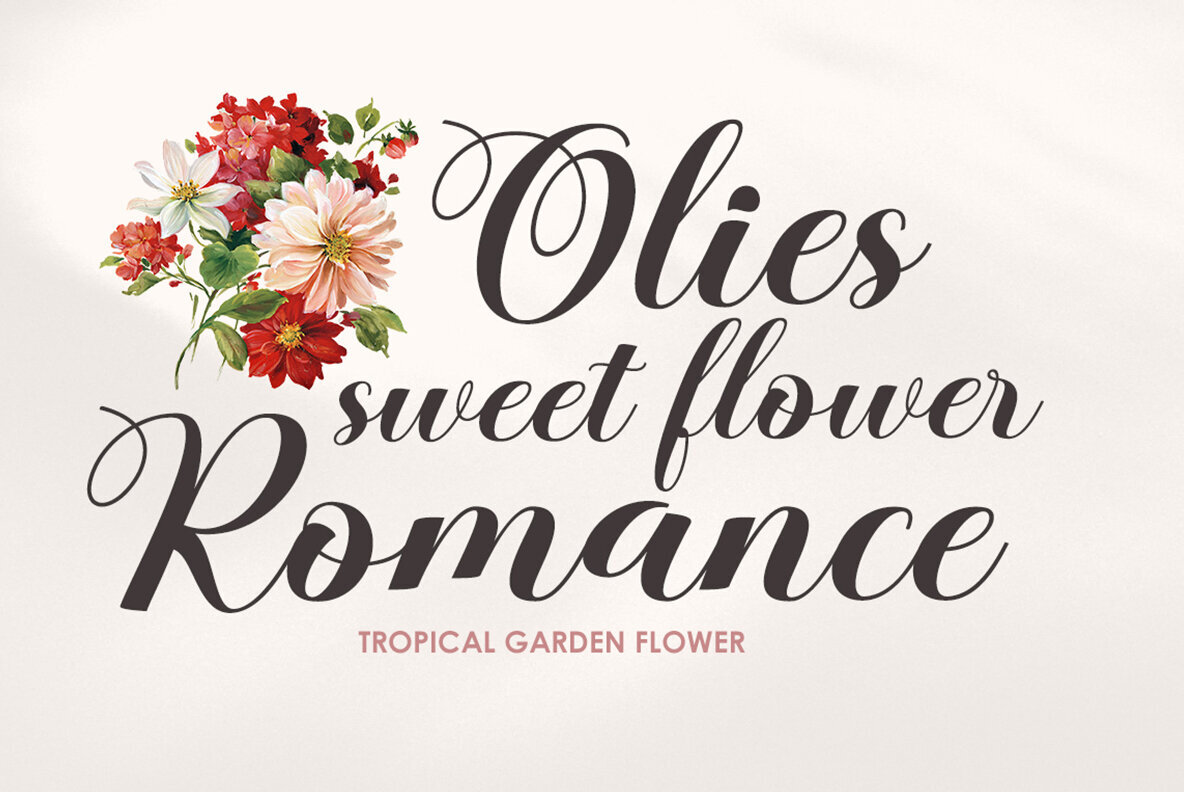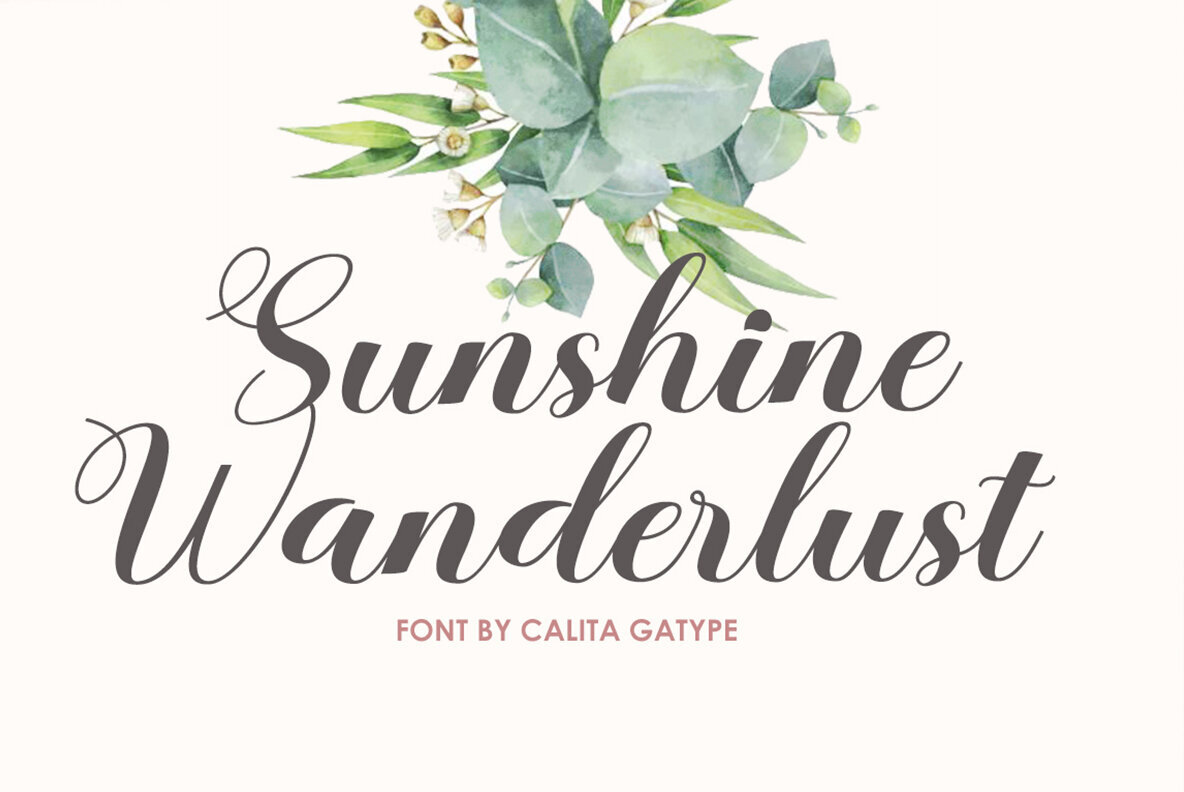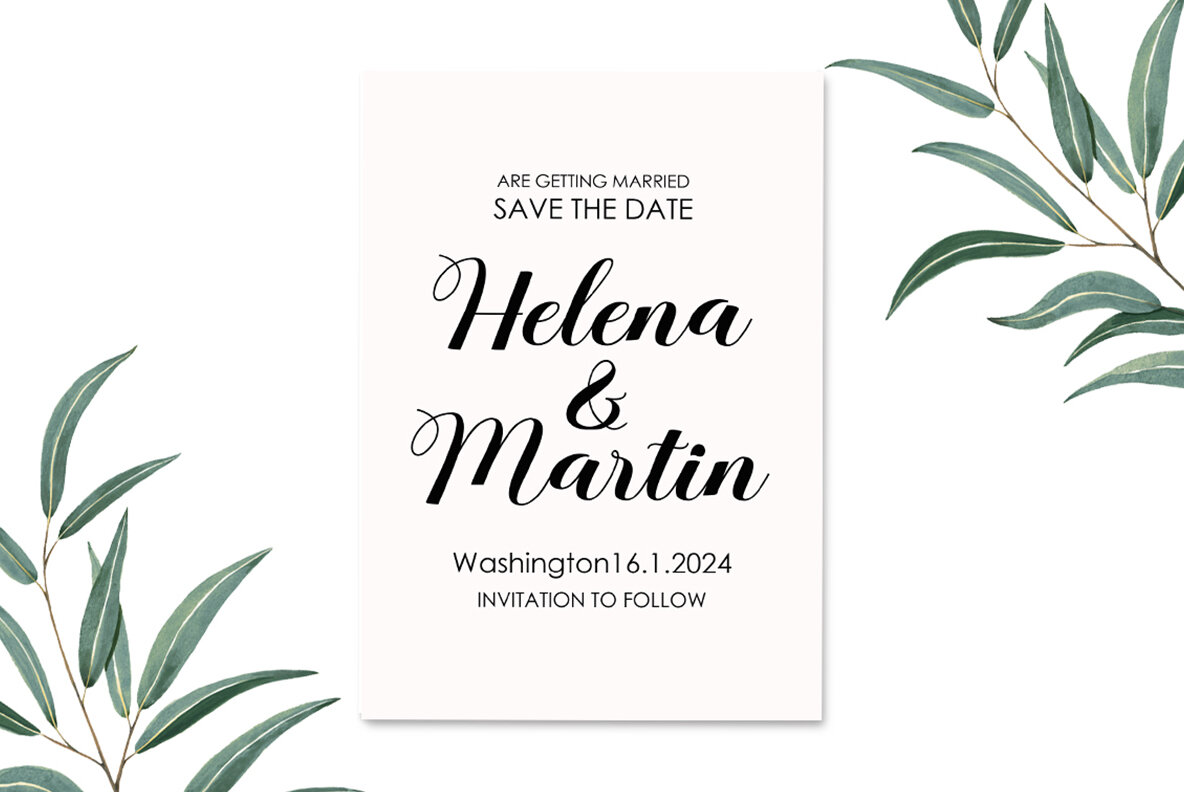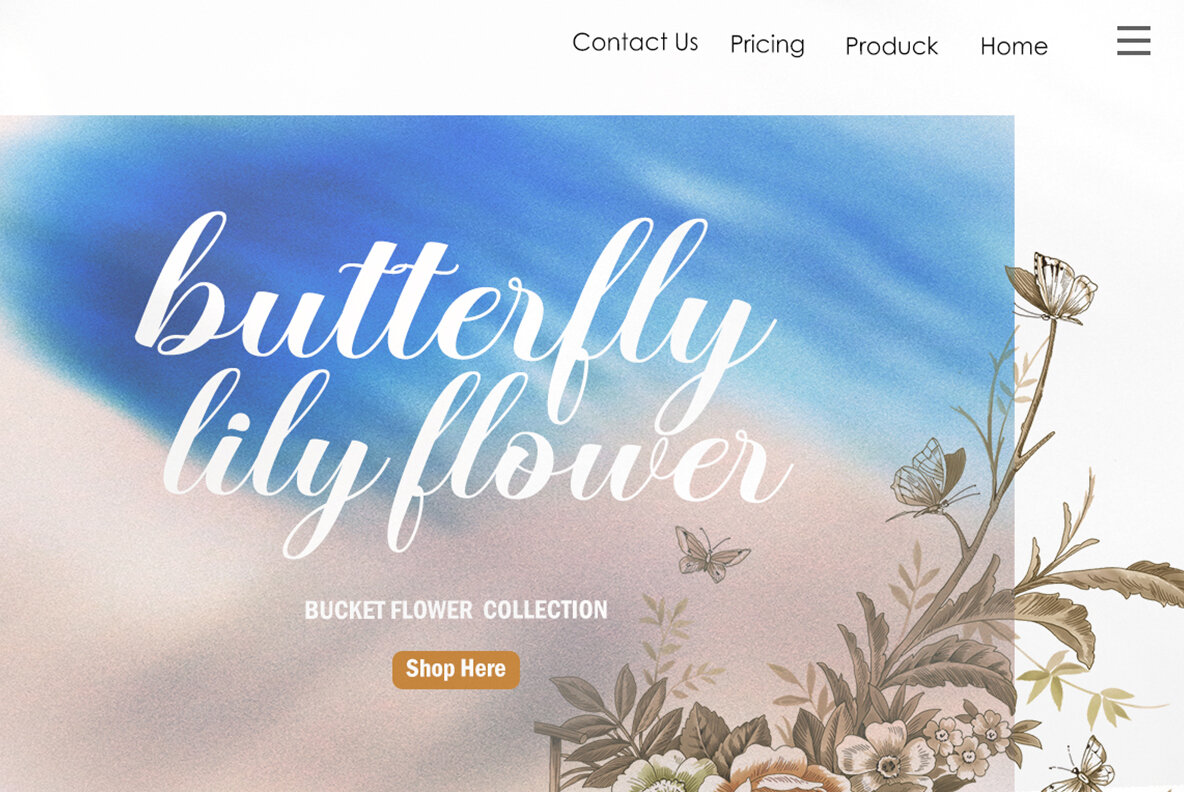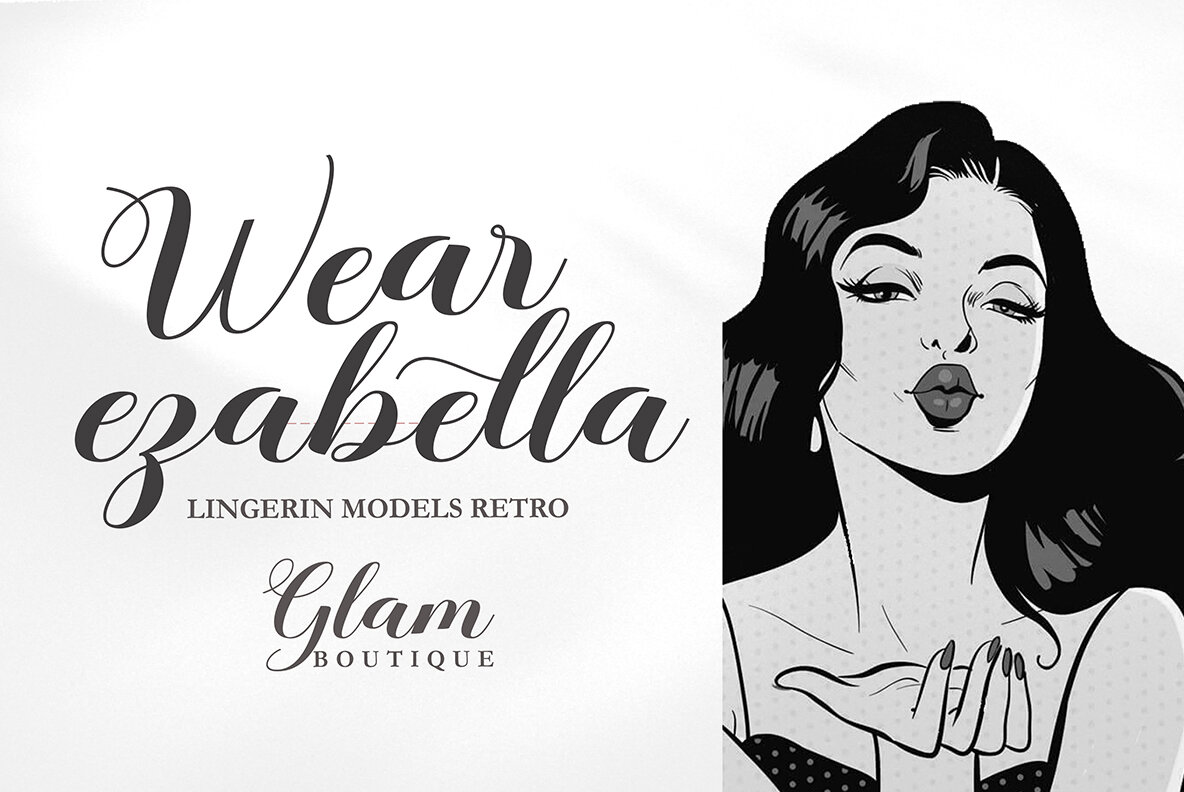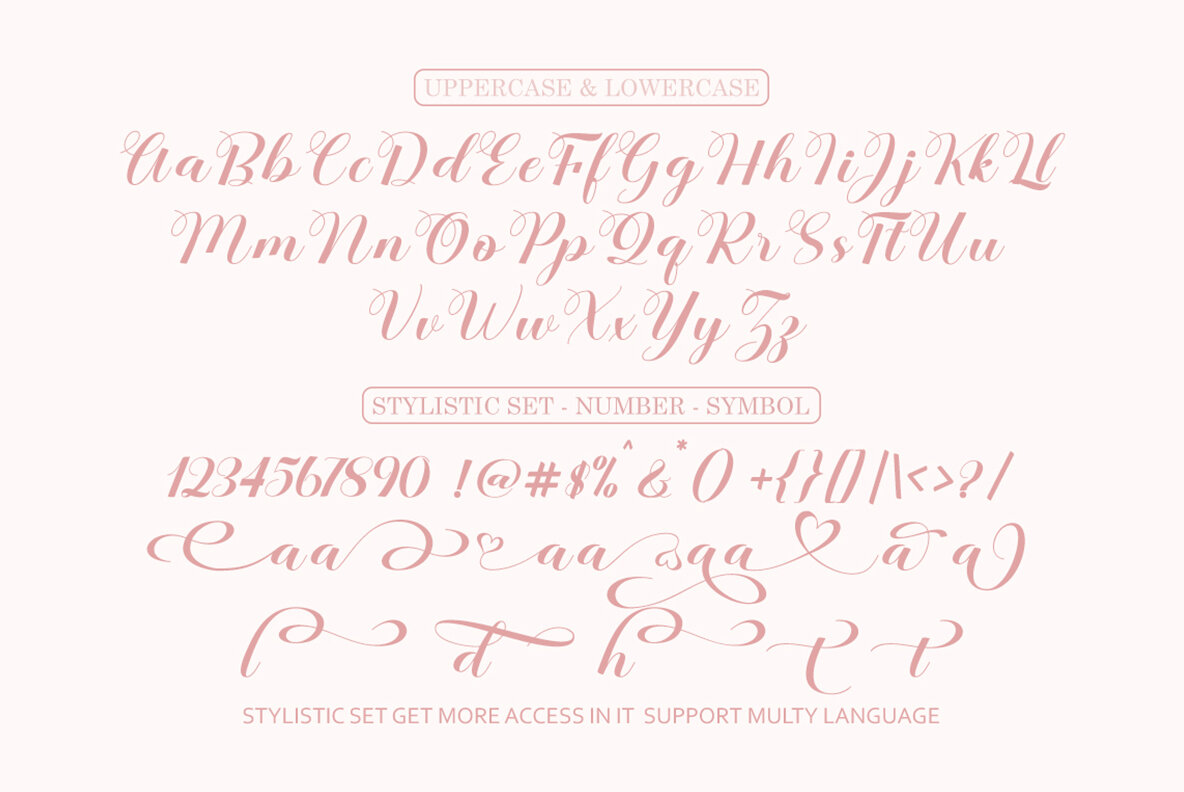
Calita Font
Calita Regular
Calita Calligraphy offers a modern, thick, and firm style with an array of character replacement styles and special glyphs, creating a blend of fantasy and handwritten ink. Ideal for:
- New Year designs
- Weddings
- Branding materials
- Blog titles
- Quotes and invitations
- Business cards
OpenType features include:
- Alternative Style
- Set Style
- Swash